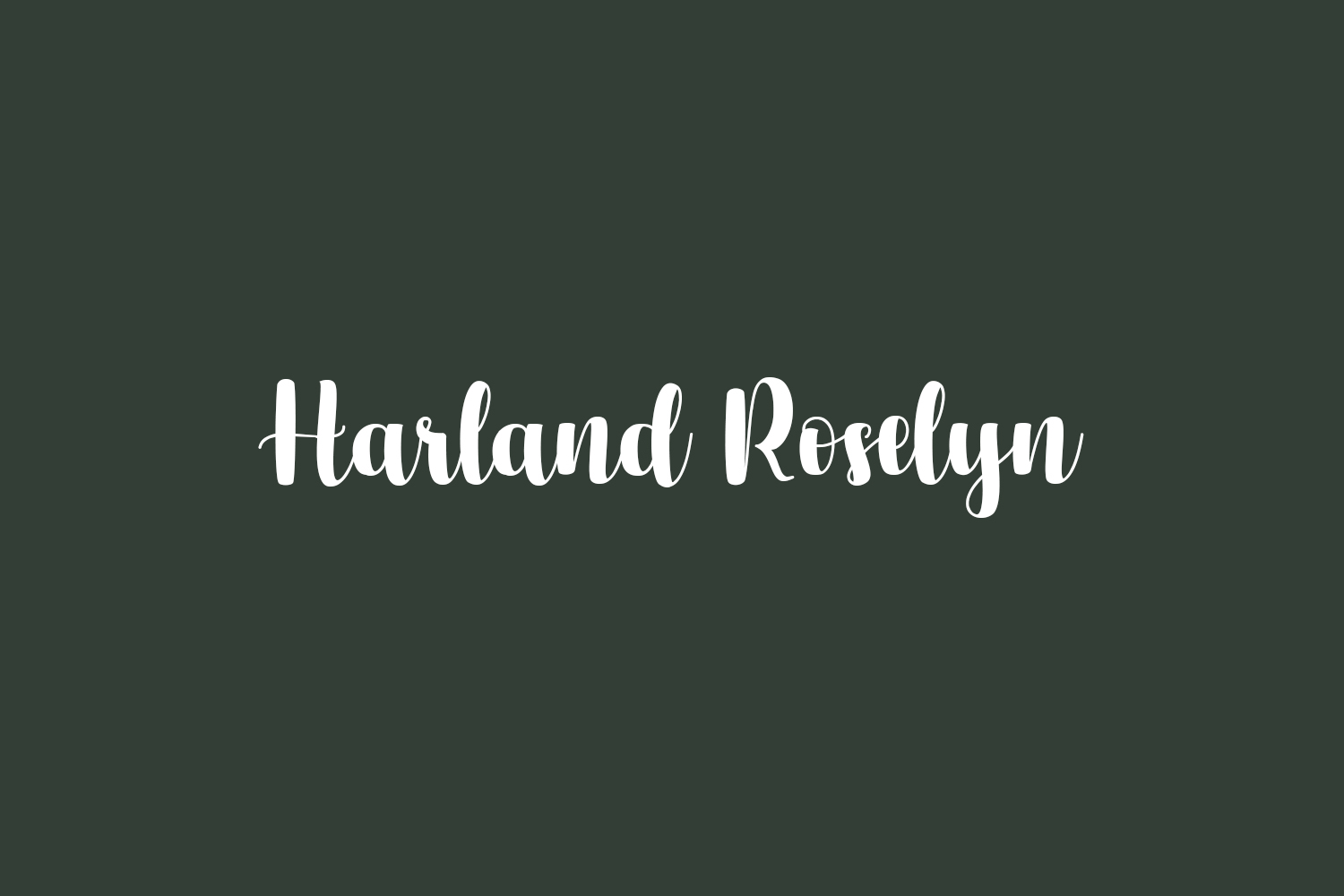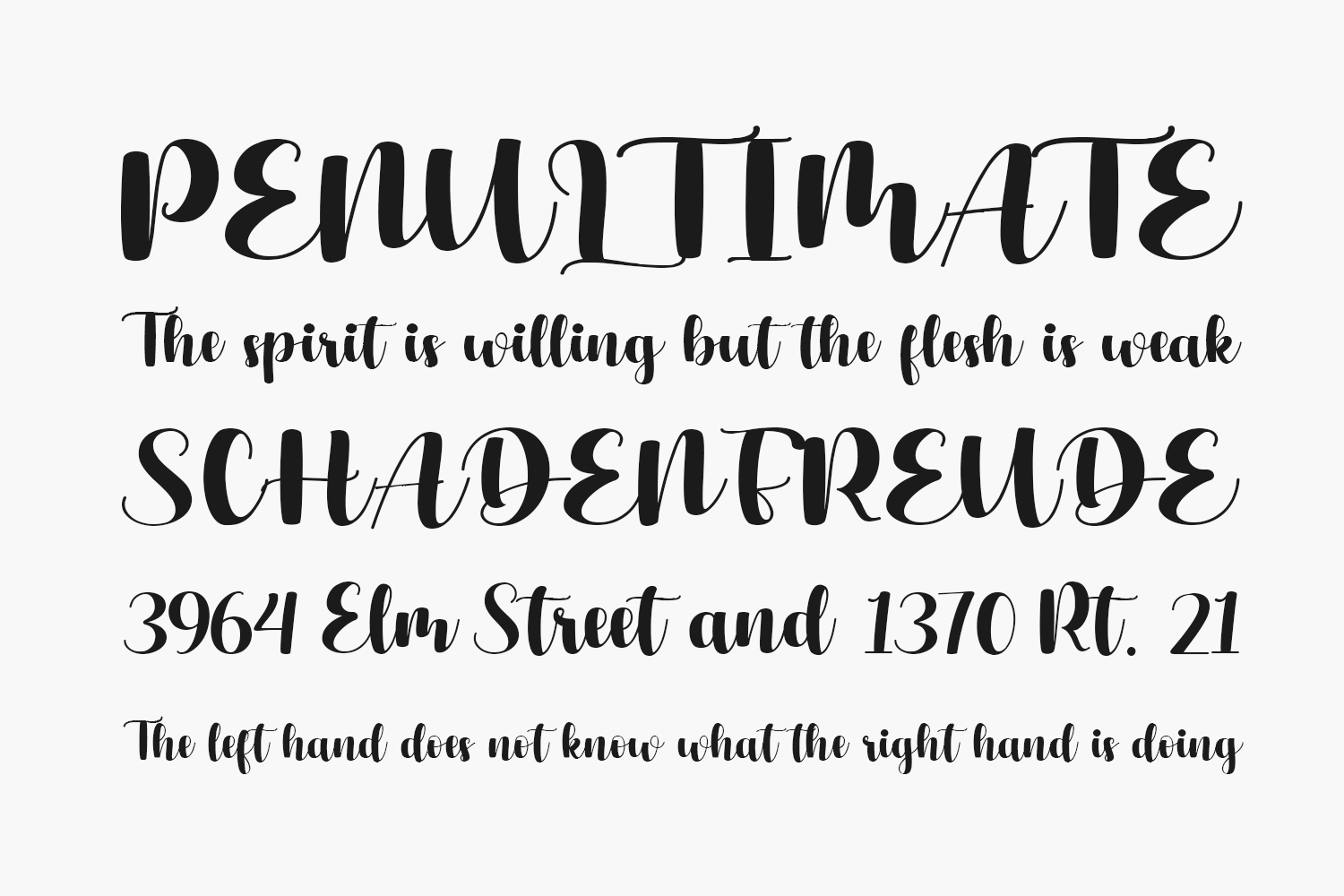
Harland Roselyn Free Font is a romantic and sweet calligraphy typeface with characters that dance along the baseline. It will add a luxury spark to any design project that you wish to create. Harland Roselyn Free Font was designed by Namara Creative Studio and is free for personal use only. Please purchase the full version for commercial use.